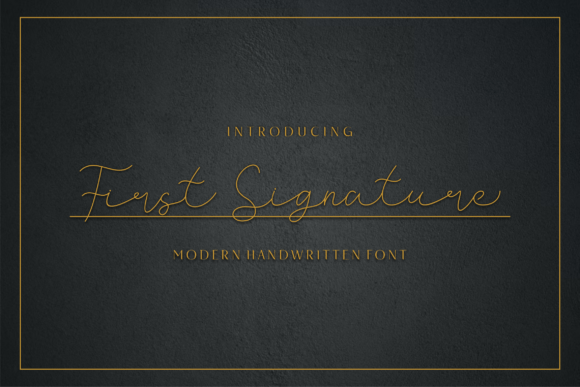
The Perfect Brush Stroke: Discovering the First Signature Font
As a designer, you’ve probably had those moments when the perfect font just clicks into place, elevating your entire project from ordinary to extraordinary. For me, it was a late-night brainstorming session, surrounded by scribbled notes and half-finished sketches. And then, like magic, the First Signature Font appeared – its delicate, elegant, and flowing handwriting style breathed new life into my design.
The First Signature Font is more than just a pretty face; it’s a versatile tool that can be used across a wide range of designs, from elegant wedding invitations to modern corporate branding. Its beautiful and well-balanced characters make it a valuable addition to any designer’s toolkit, capable of adding a touch of sophistication and whimsy to even the most mundane projects.
Whether you’re a seasoned pro or just starting out, the First Signature Font is an essential resource that’s sure to inspire your creativity and take your designs to the next level.
Key Features of “First Signature Font”
- Unique Characteristics: The font features a unique blend of modern and classic elements, with a distinctive flair that sets it apart from other signature fonts.
- Script and Ligature Support: The font includes advanced script and ligature support, allowing for smooth and natural connections between letters and characters.
First Signature Font Review
I’ve had the chance to work with the First Signature Font and here’s my honest take on it. ✨ One thing that stands out is the sleek and modern aesthetic it brings to any design project. The font is perfect for creating a professional and polished look, especially in branding and marketing materials.
Another great aspect of this font is its versatility. It works well for both digital and print projects, making it a great all-around choice. The font is also highly customizable, allowing you to adjust the size, color, and style to fit your specific needs.
- Modern and sleek aesthetic
- Perfect for branding and marketing materials
- Versatile for both digital and print projects
- ⚠️ Limited character set, which can be a problem for longer text
- ⚠️ May not be suitable for complex layouts or intricate designs
Overall, I’m impressed with the First Signature Font and its ability to bring a touch of professionalism to any design project. While it may have some limitations, it’s a great choice for designers looking for a clean and modern font.
The First Signature Font is ideal for creating professional-looking signatures, logos, and branding materials. It’s also great for adding a touch of elegance to presentations, documents, and social media graphics.
Use the font to create a consistent visual identity across all your marketing materials and make a lasting impression on your audience.